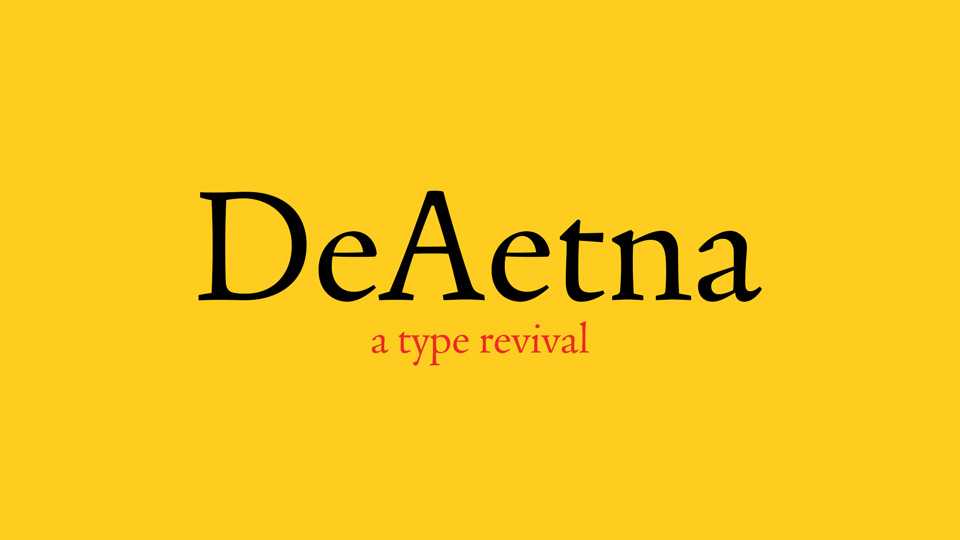
Download De Aetna font, a serif typeface, a revival of a historical type – the roman cut by Francesco Griffo for the De Aetna (1496). De Aetna typeface includes 4 styles that lend a distinctive elegance and liveliness to text paragraphs and display type.
Designer: Riccardo Olocco